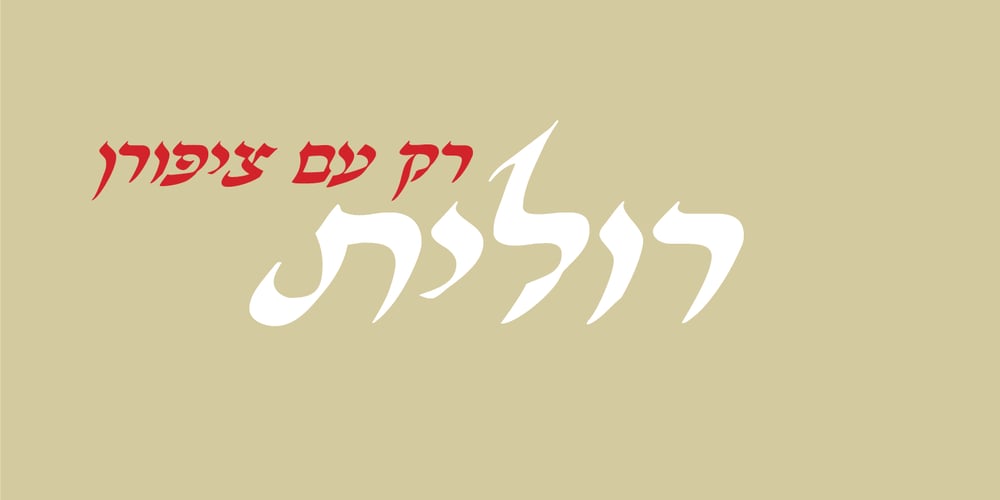
Rolit MF
Rolit MF font
Rolit MF Font Family was designed by Zeev Lipman and published by Masterfont. Rolit MF contains 2 styles and family package options. Those elegant nib strokes create this unique rhythm to this cursive hand lettering.